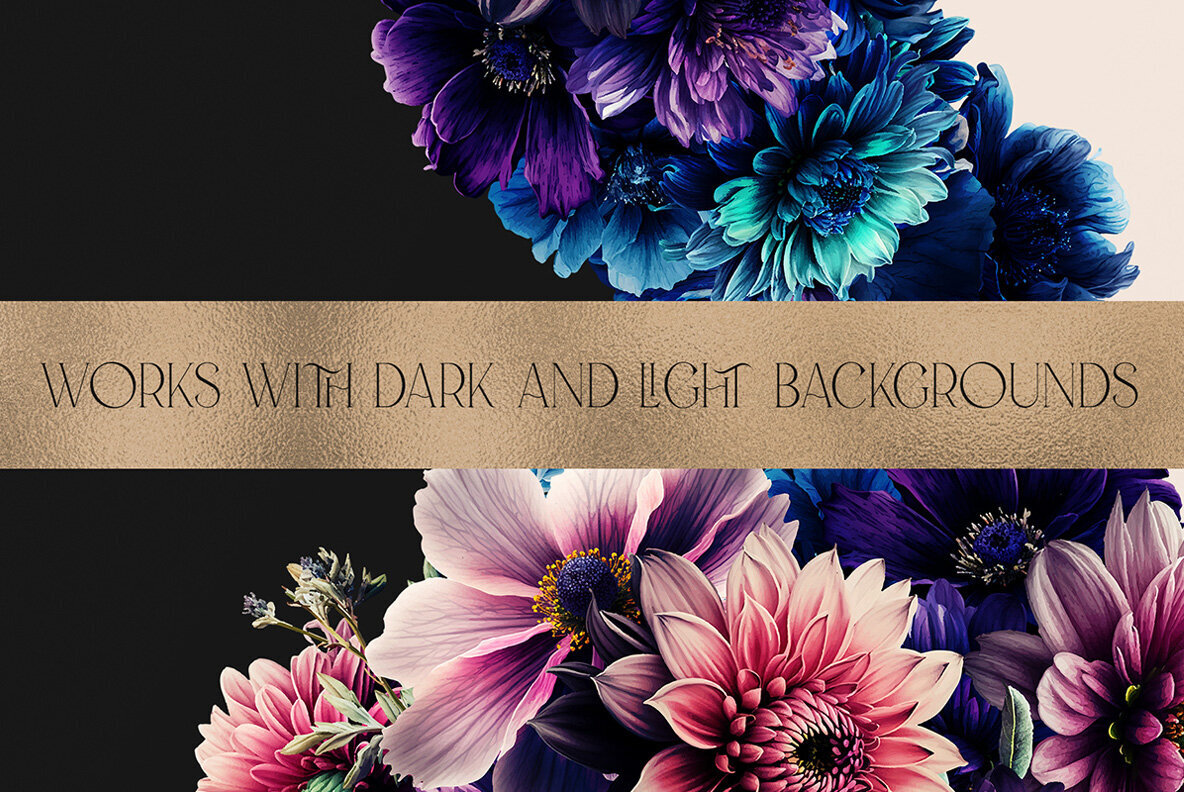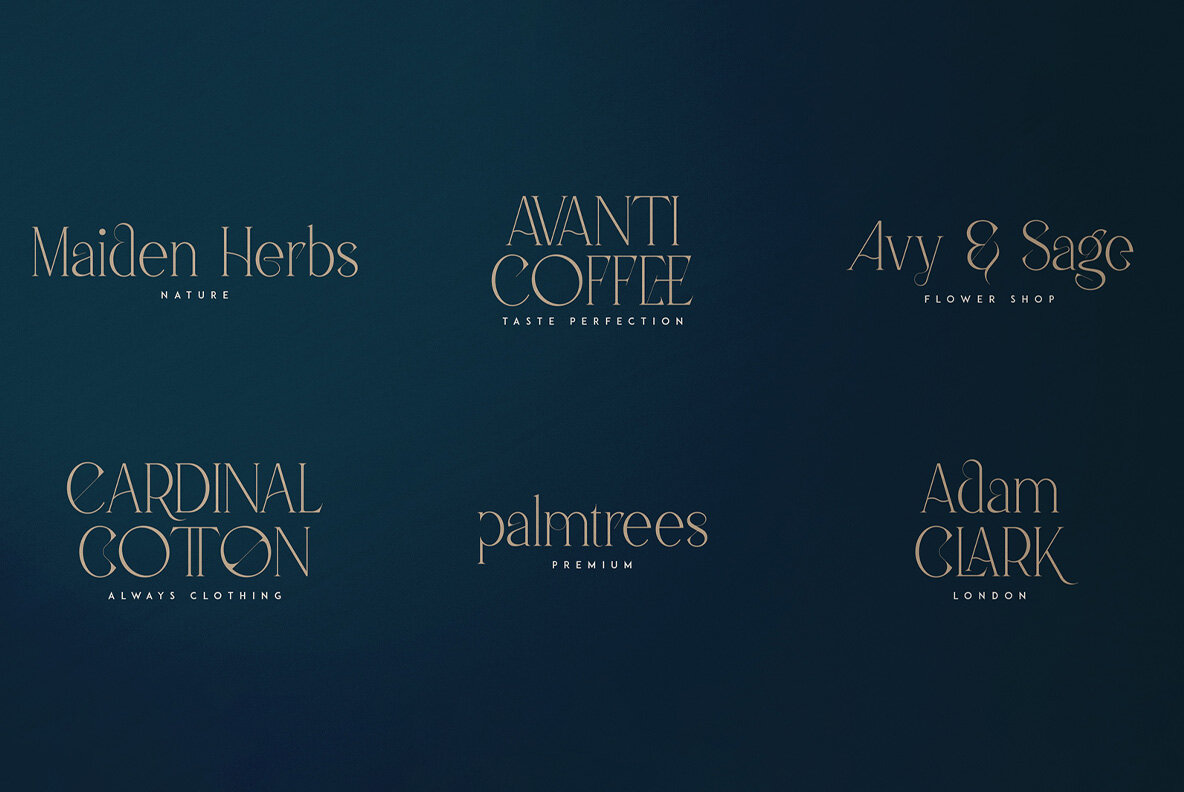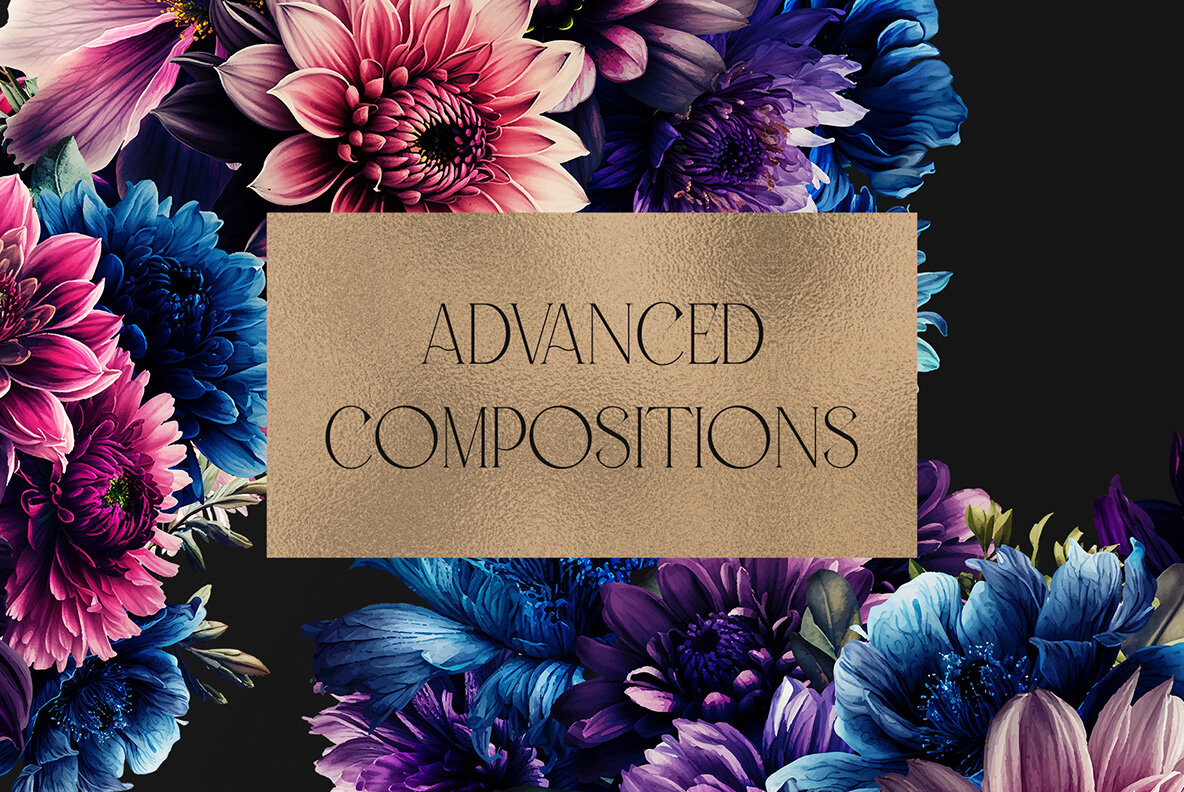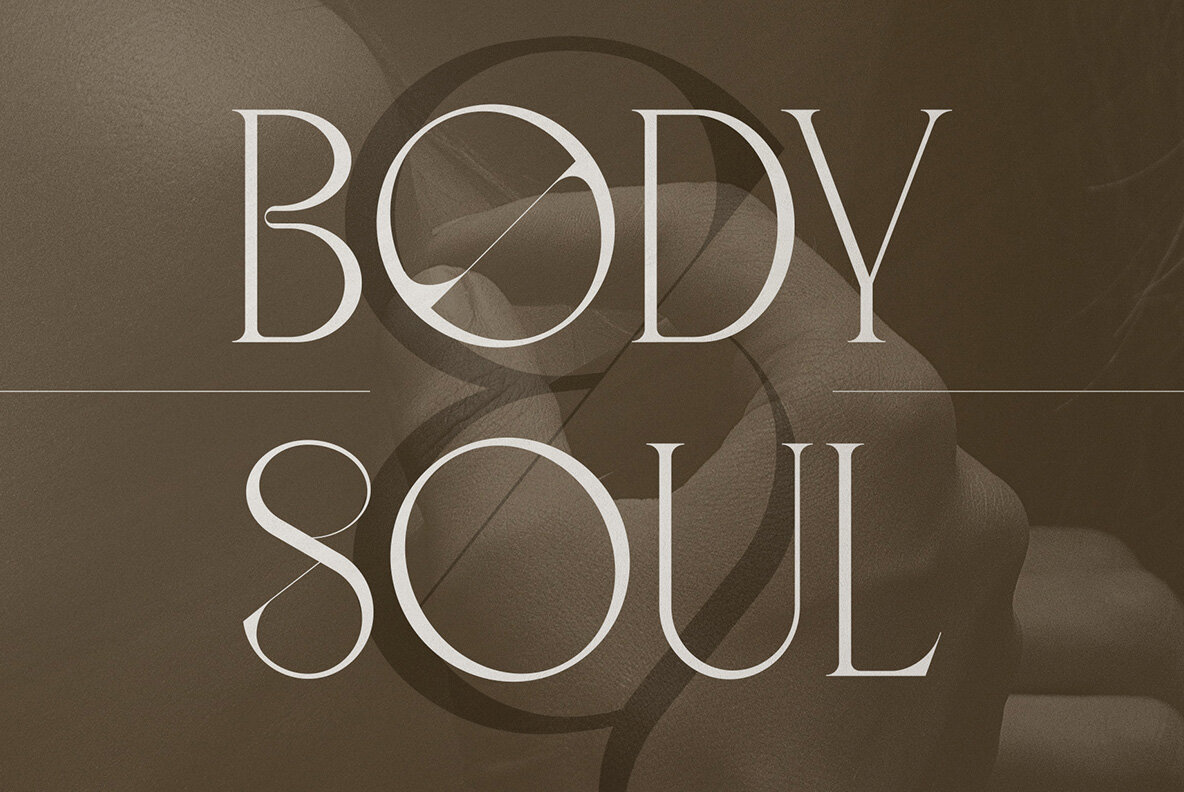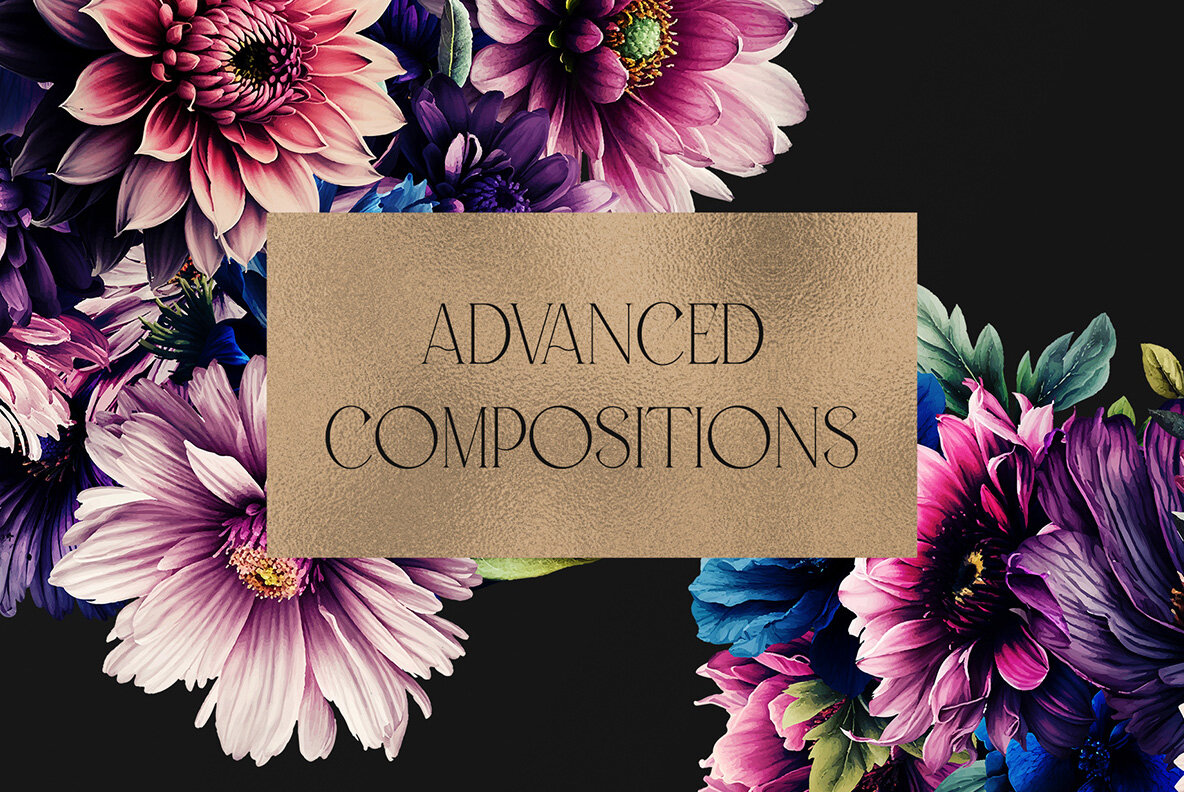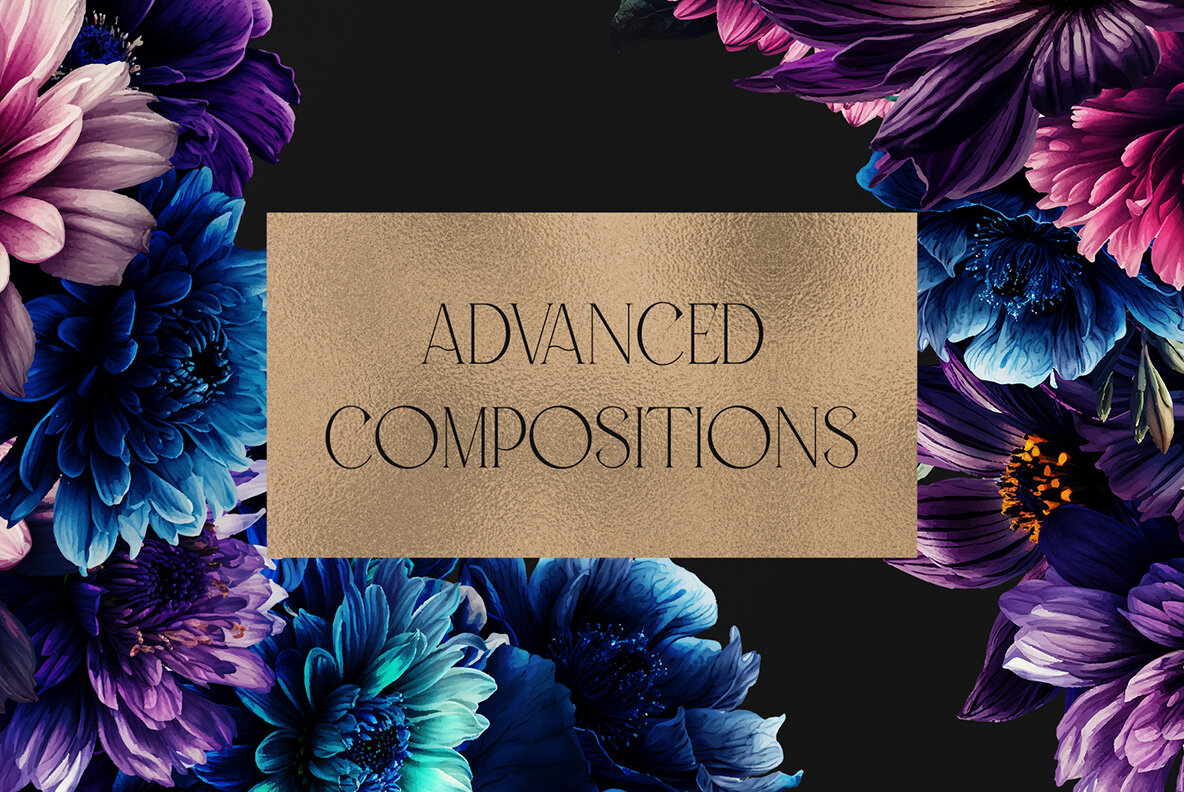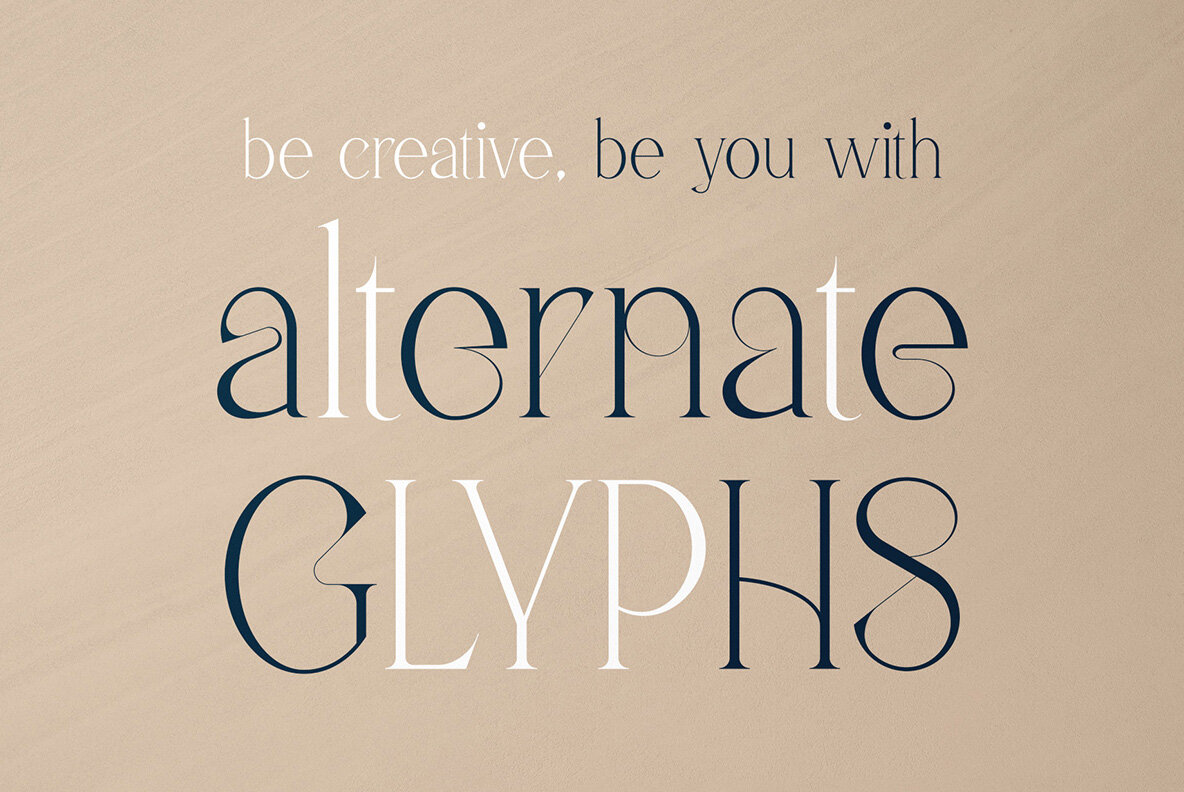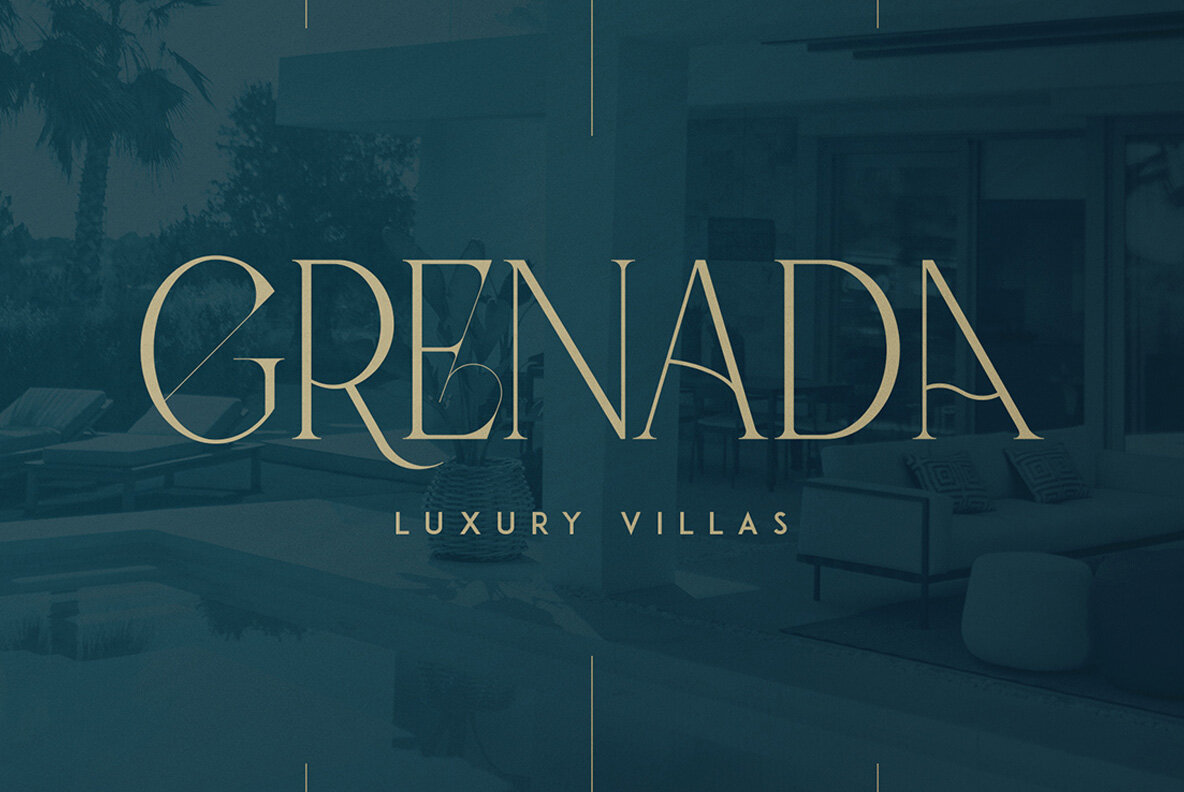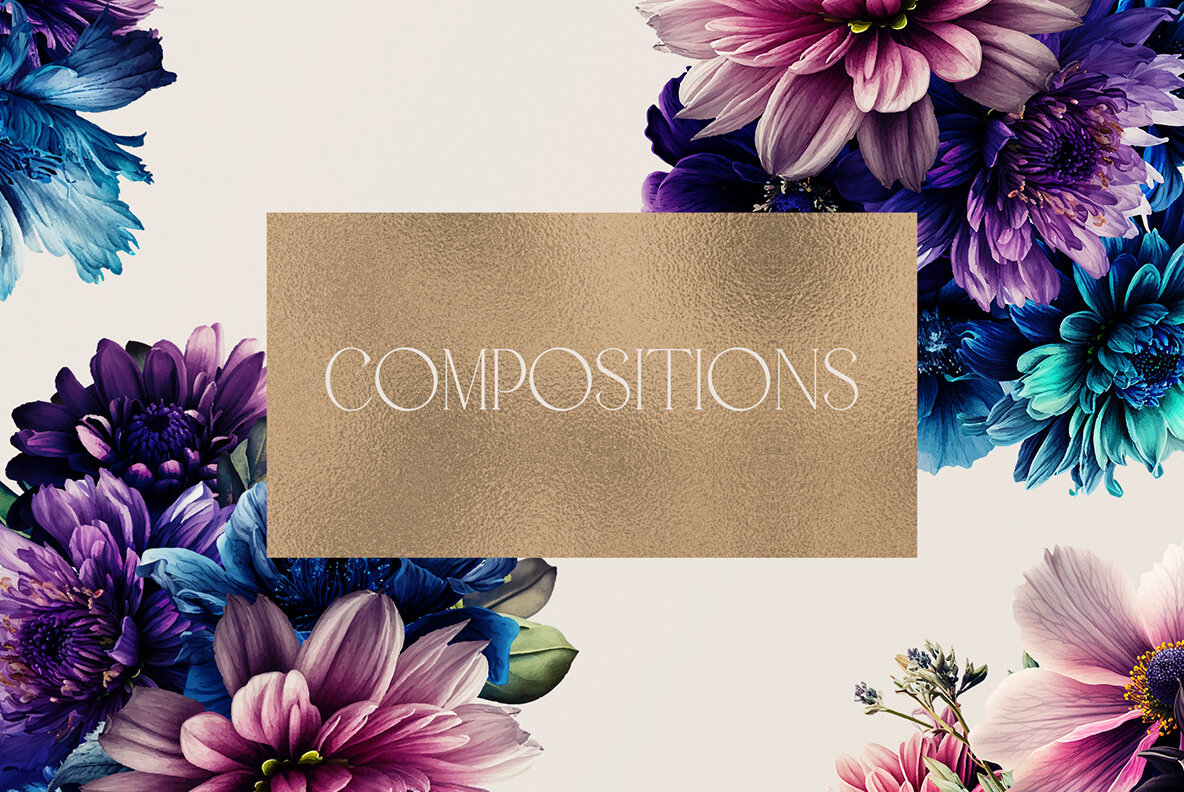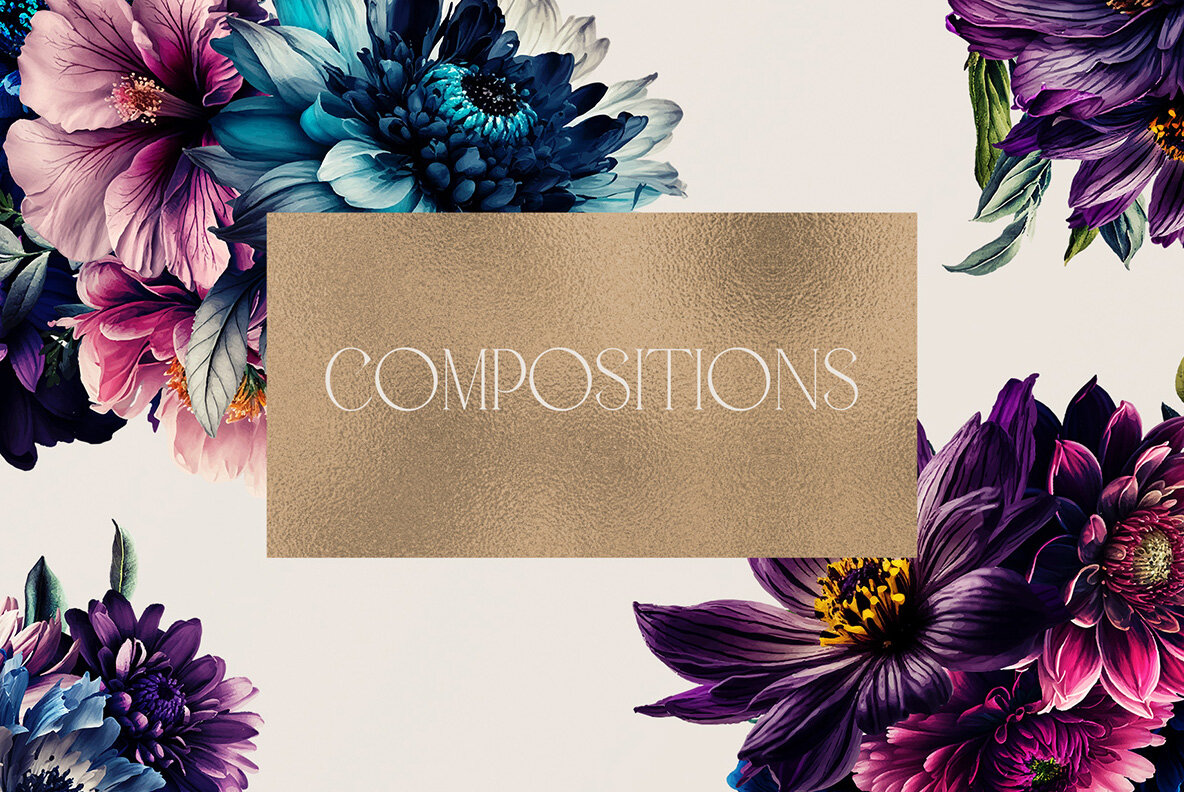
Colorful Botanica with Malinger Font
Colorful Botanica introduces an inspiring toolkit that seamlessly marries creativity with functionality. At its core is the Malinger serif font, designed to infuse projects with a unique charm and expressive detail. The package comes equipped with meticulously crafted assets—six advanced compositions, twelve standard compositions, and ten adaptable frames. These elements are presented in PNG format, ensuring versatility and ease of use. This comprehensive suite offers expansive language support, including 95 languages and Cyrillic, broadening its utility for global designers. The thoughtfully designed compositions are ready to use without needing specialized software, simplifying the creative process. To explore alternate glyphs in Adobe InDesign or Illustrator, an easy-to-navigate glyphs panel is utilized. Similarly, in Photoshop, the glyphs feature allows for seamless integration of alternates, offering a flexible design experience.Colorful Botanica: A Creative Flourish with Malinger Font